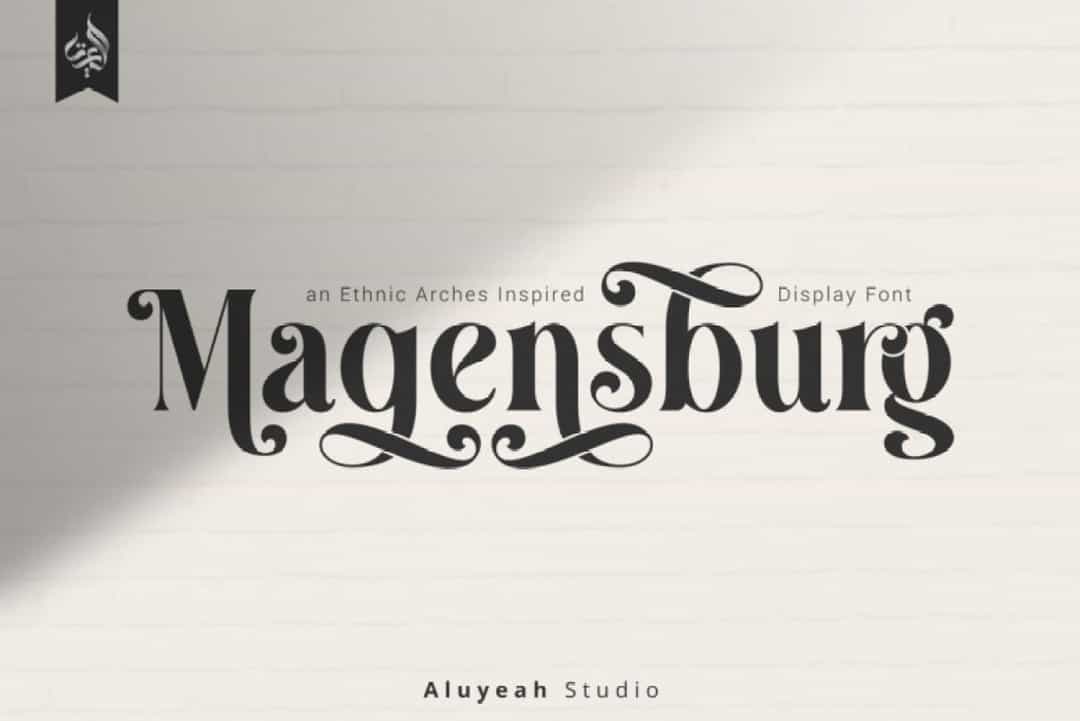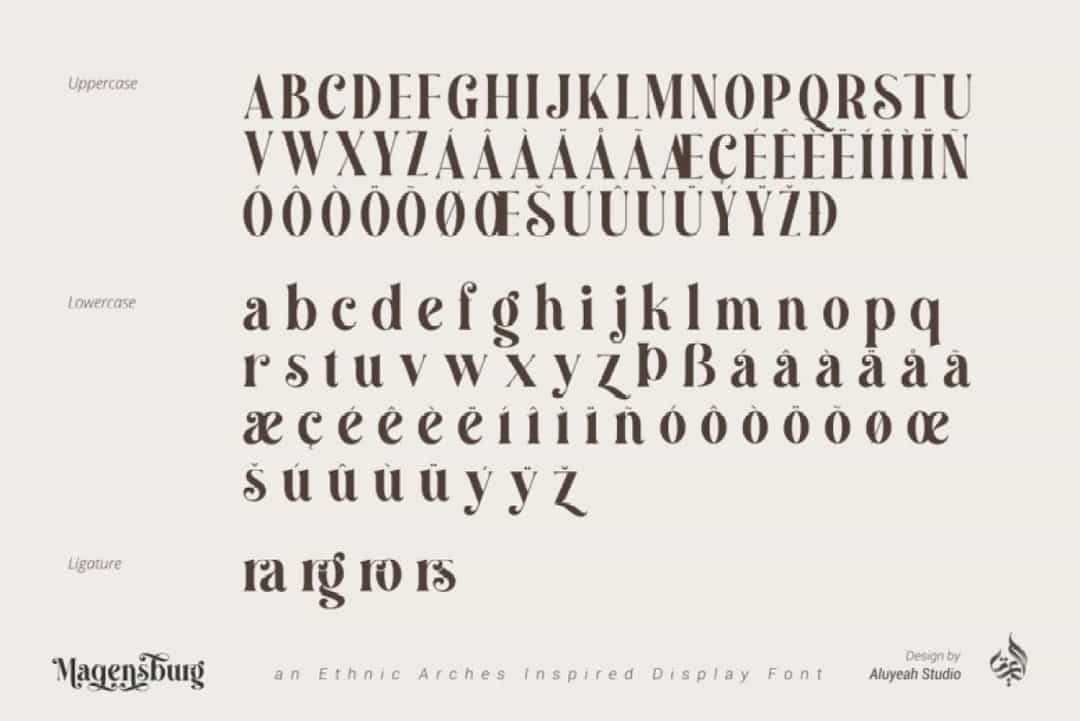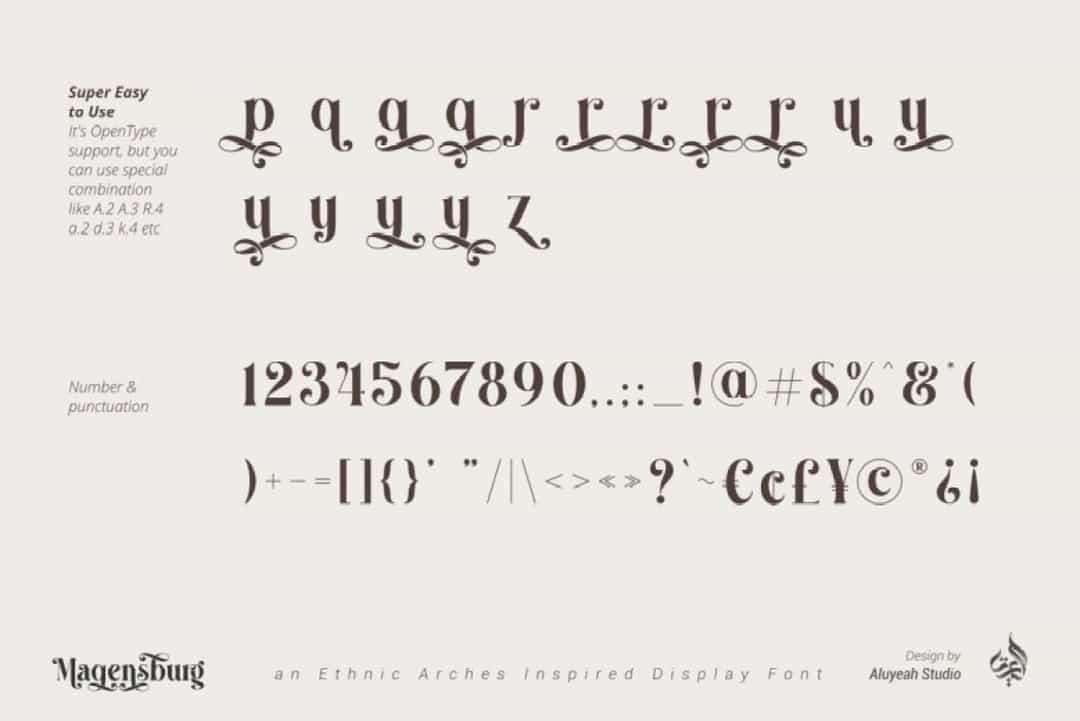
Magensburg is an elegant display font which is mainly influenced by the ethnic arches from all across the globe and gives a classic and mysterious touch to the overall design. We offer more than 160 beautiful options so that you can come up with an elegant, luxurious, magical, yet classy look of your choice!